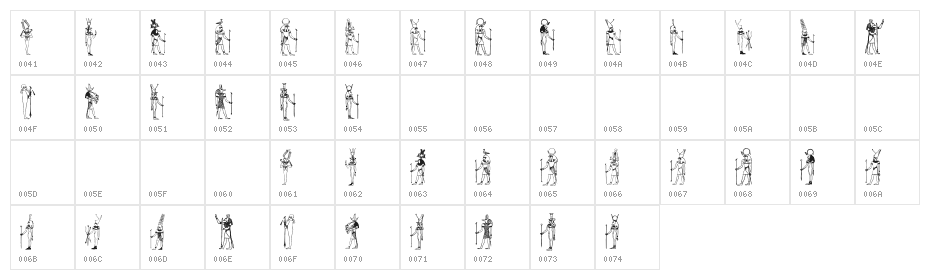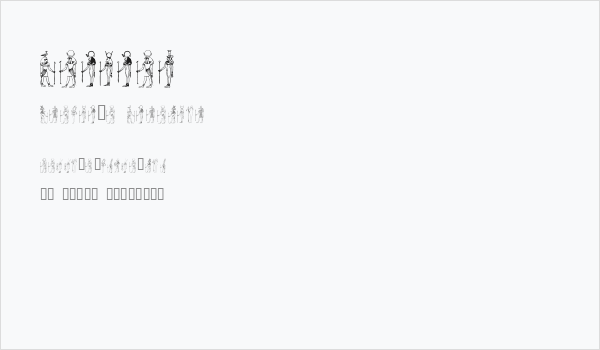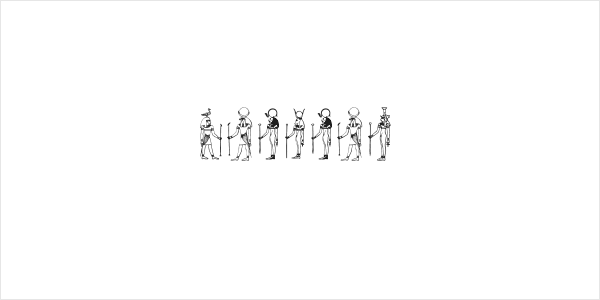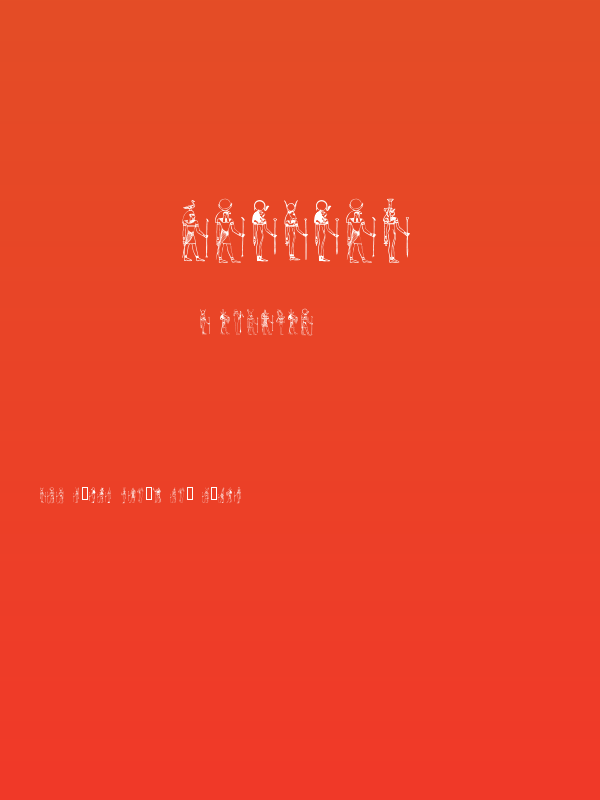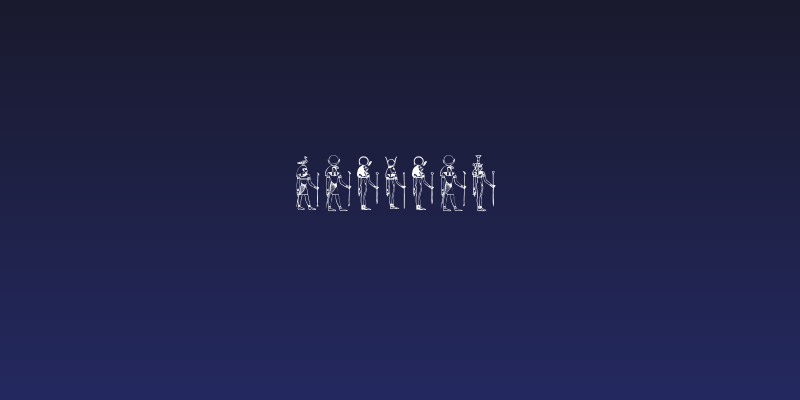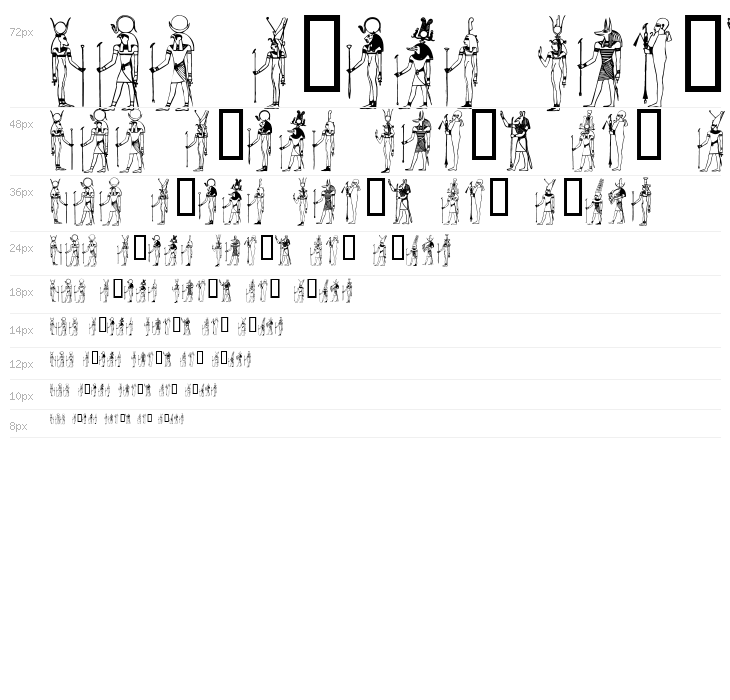
Deities Font
Deities Description
A decorative font featuring detailed illustrations of ancient Egyptian deities as letterforms, each character stylized with traditional iconography and attire, creating a highly thematic and ornamental appearance.
| Overall Style | Decorative, Thematic, Historical |
| Use Case | Logos, Headlines, Posters, Themed graphics |
| Proposed Projects | Museum exhibits, educational posters, themed event invitations, historical fiction book covers, cultural branding. |